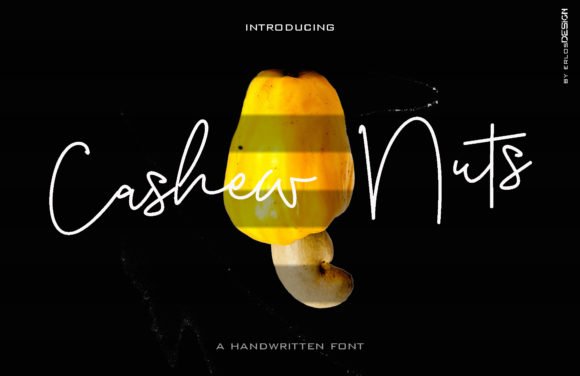
Unwrapping the Perfect Font: Cashew Nuts Font
There’s something magical about finding that perfect font to bring a design to life. You’re browsing through a sea of options, and suddenly, one catches your eye. The letters seem to dance across the screen, and you can almost feel the vibe of your project taking shape. For many designers, that moment is what makes all the hard work worth it.
Cashew Nuts Font is one of those special finds. This elegant handwritten font is more than just a pretty face – it’s a versatile tool that can elevate any design from simple to stunning. Whether you’re creating a beautiful wedding invitation or a heartfelt greeting card, Cashew Nuts Font is the perfect companion to bring your vision to life.
Cashew Nuts Font Key Features
- Font Family: Cashew Nuts Font offers a unique, hand-drawn style with a wide range of weights and styles.
- Character Count: The font family includes over 400 glyphs, ensuring comprehensive language support and a wide range of characters.
- Resolution: Optimized for high-resolution displays, making it perfect for use in digital design, including web and mobile applications.
- Size: Available in 6 weights, ranging from Light to Black, allowing designers to achieve the perfect balance of style and legibility.
- Unique Characteristics: The Cashew Nuts Font features a distinctive, hand-crafted feel with subtle imperfections, adding a touch of warmth and personality to any design.
Cashew Nuts Font Review
First off, I want to say that I was excited to dive into the Cashew Nuts Font and see what it had to offer. I was looking for a font that could bring a unique, playful feel to my designs, and I was hopeful that this font would deliver.
✨ One thing that works well in this font is its varied line height. It adds a nice visual interest and helps to make text more readable, especially in longer blocks of copy. The letterforms are also well-spaced, making it easy to see each letter clearly. Additionally, the font has a great weight and style range, allowing you to choose the perfect version for your design.
⚠️ However, I did find a few limitations with this font. One of the biggest issues is the limited language support. If you’re working on a project that requires text in multiple languages, you may find that this font doesn’t have the characters you need. Additionally, the font could benefit from more glyphs and symbols to enhance its usability.
Overall, I would say that the Cashew Nuts Font is a solid choice for designers looking for a fun, playful font. While it may not be the most versatile option, it’s a great choice for projects that require a lighthearted, approachable feel.
Design Considerations:
- Varied line height for added visual interest
- Well-spaced letterforms for easy readability
- Great weight and style range for flexibility
- Limited language support may be a concern
- Could benefit from more glyphs and symbols
Tips for Getting the Most Out of the Cashew Nuts Font
Use the Cashew Nuts Font for creative projects that require a unique and playful touch.
Combine the font with other creative elements, such as illustrations and graphics, to create visually appealing designs.
The Cashew Nuts Font is commonly used for:
Branding and logos
Invitations and event materials
Children’s educational materials
Marketing